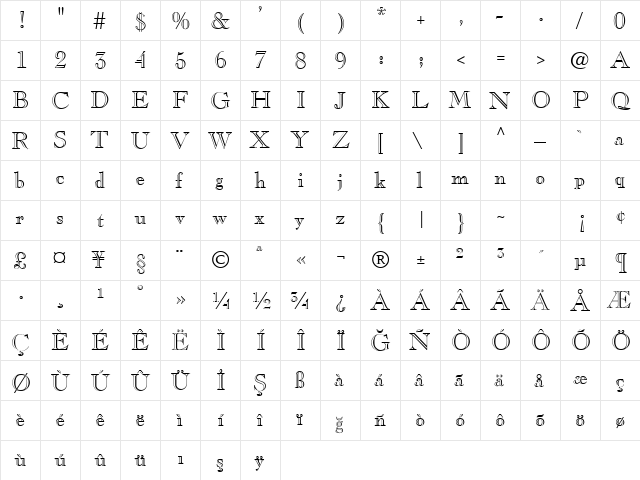
TR CasperOpenFace Plain
Design Context for TR CasperOpenFace Typeface
TR CasperOpenFace is a composed and adaptable typeface that performs quietly and consistently across a wide range of design contexts.